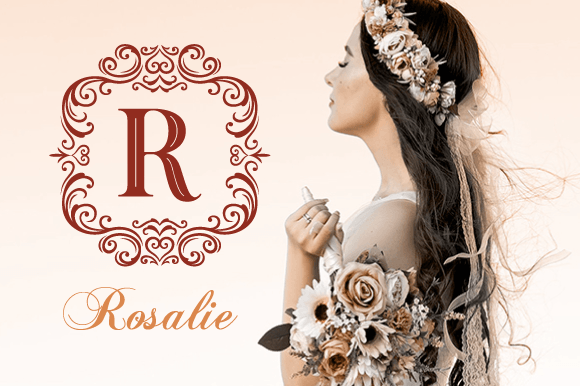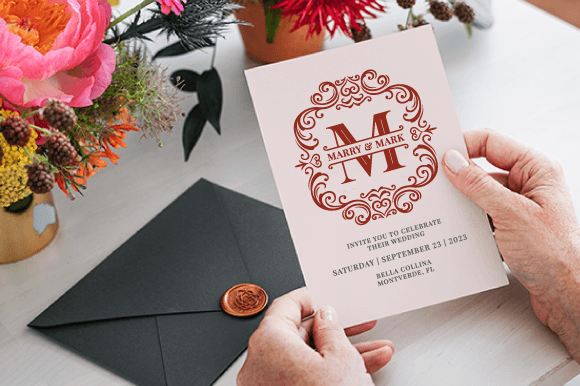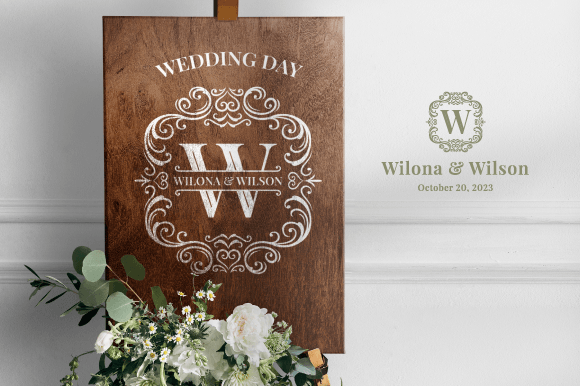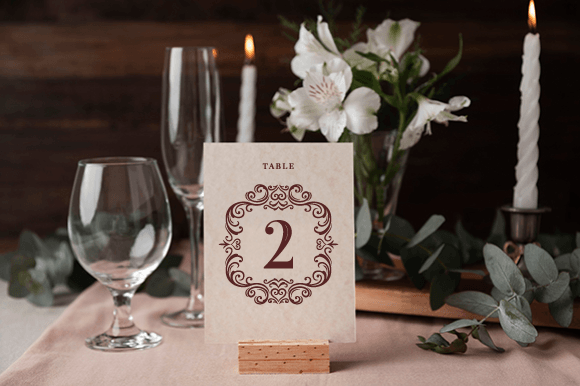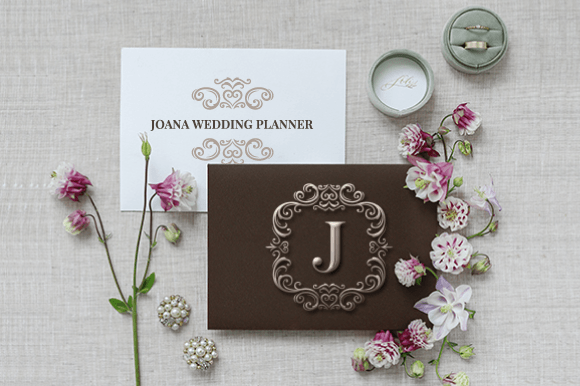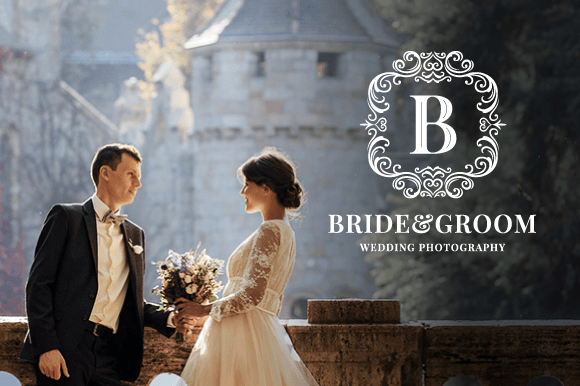
Introduction to Queen Vintage Monogram Font
Remember the thrill of designing your first wedding invitation? The excitement of choosing the perfect font to set the tone for the big day? For many designers, the right font can make all the difference between a beautiful design and a truly unforgettable one. And that’s exactly where the Queen Vintage Monogram Font comes in – a classic styled and elegant decorative font that’s perfect for creating luxurious wedding designs, eye-catching logos, and unique gifts.
Whether you’re a seasoned designer or just starting out, the Queen Vintage Monogram Font is a valuable resource to have in your toolkit. With its charming ornamental design and high-quality feel, it’s the perfect addition to any creative project. And the best part? It’s available for free download, complete with a transparent background, making it easy to use in any design scenario.
Key Features of Queen Vintage Monogram Font
- High-quality design resource ideal for creative projects, such as invitations, greeting cards, and more.
- Unique Queen Vintage Monogram Font features a beautiful, elegant monogram design with intricate details and ornate flourishes.
- Perfect for designers looking for a unique and elegant design resource to elevate their creative project.
Honest Review: Queen Vintage Monogram Font
I recently had the chance to work with the Queen Vintage Monogram Font, and I must say it’s been a game-changer for my creative projects. This beautiful, high-quality font is perfect for designers looking for a unique touch in their designs.
- ✨ High-quality design: The font is incredibly detailed and has a beautiful, vintage feel to it.
- ✨ Transparent background: This feature allows for seamless integration with other design elements.
- ✨ Perfect for monogram designs: As the name suggests, this font is ideal for creating beautiful monograms.
However, I do have to mention a few limitations:
- ⚠️ Limited font styles: While the font itself is beautiful, there are only a few styles available, which may limit its versatility.
- ⚠️ Not suitable for large-scale projects: Due to its vintage feel, this font may not be the best choice for large-scale or modern designs.
Overall, I’m thoroughly impressed with the Queen Vintage Monogram Font. It’s a fantastic design resource that’s perfect for adding a touch of elegance to your creative projects. With its high-quality design and transparent background, it’s a must-have for any designer looking to add a vintage touch to their work.
Tips for Getting the Most Out of Queen Vintage Monogram Font
Use the Queen Vintage Monogram Font to add a touch of elegance to your creative projects. Experiment with different colors and sizes to create a unique look. You can also combine the font with other design elements to create a cohesive design.
The Queen Vintage Monogram Font is perfect for creating invitations, business cards, and social media graphics. You can also use it to add a personal touch to your wedding stationery, photo albums, and scrapbook pages.